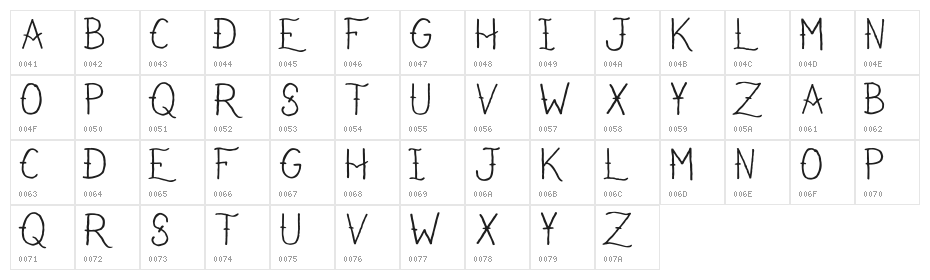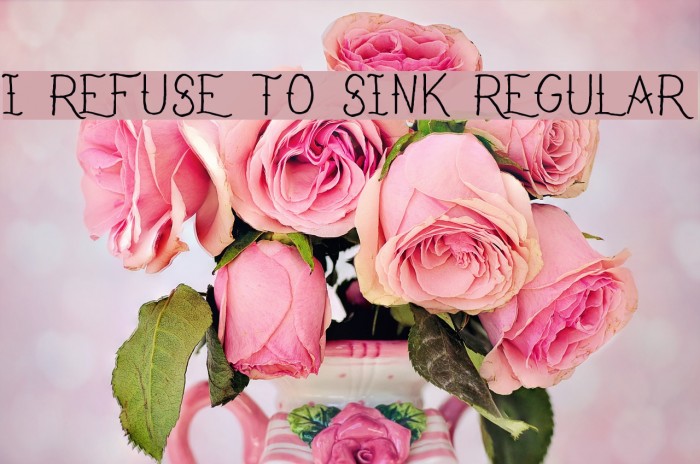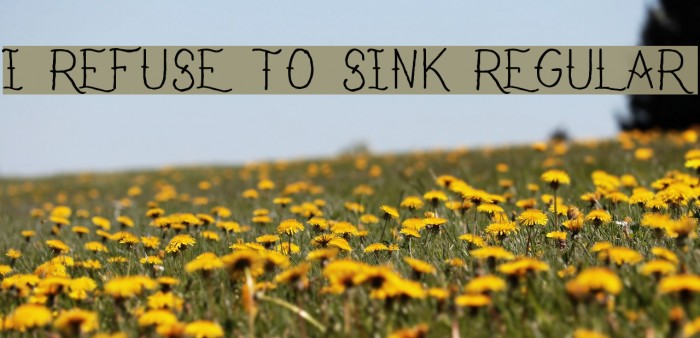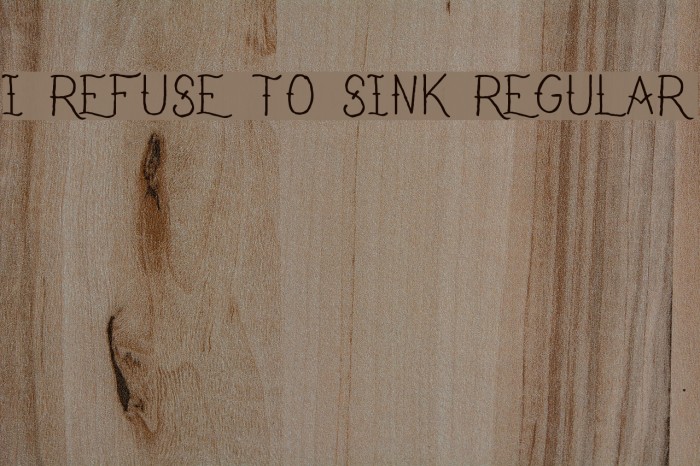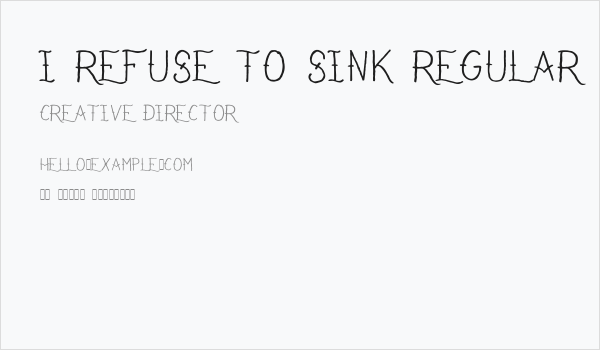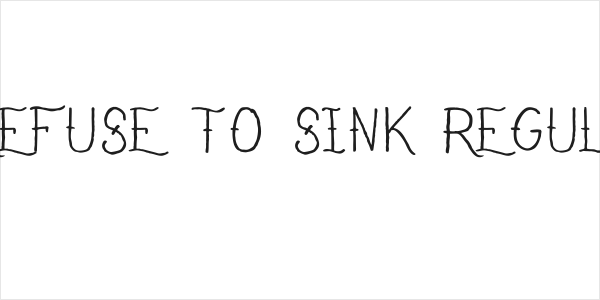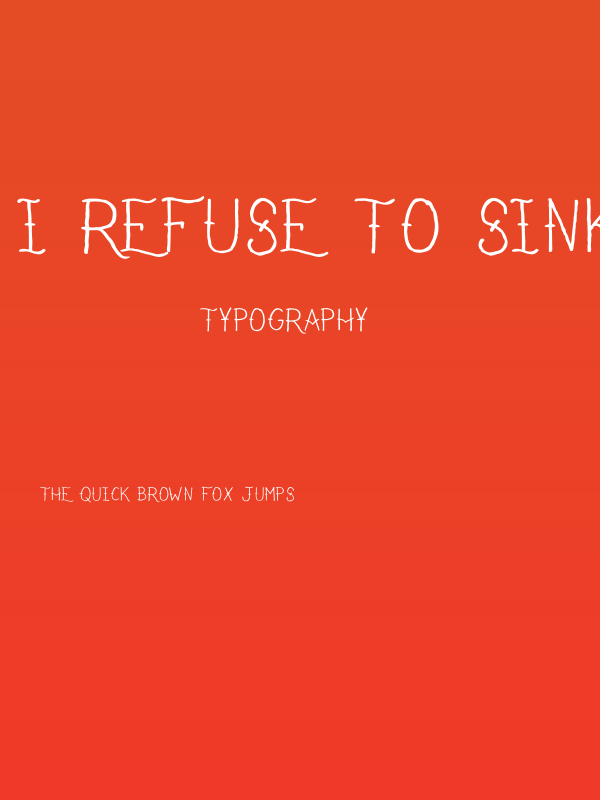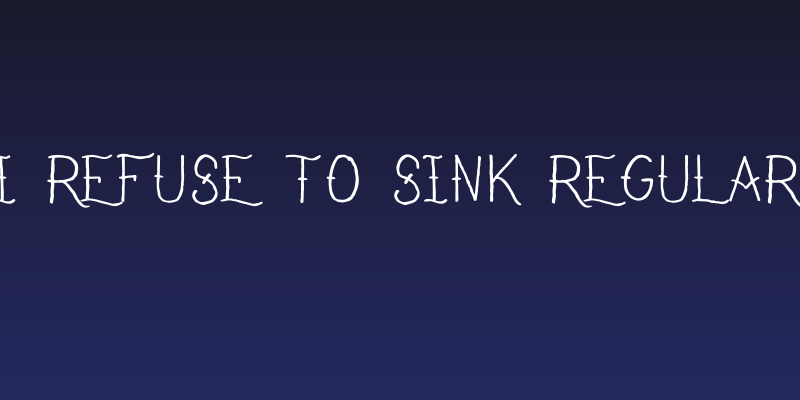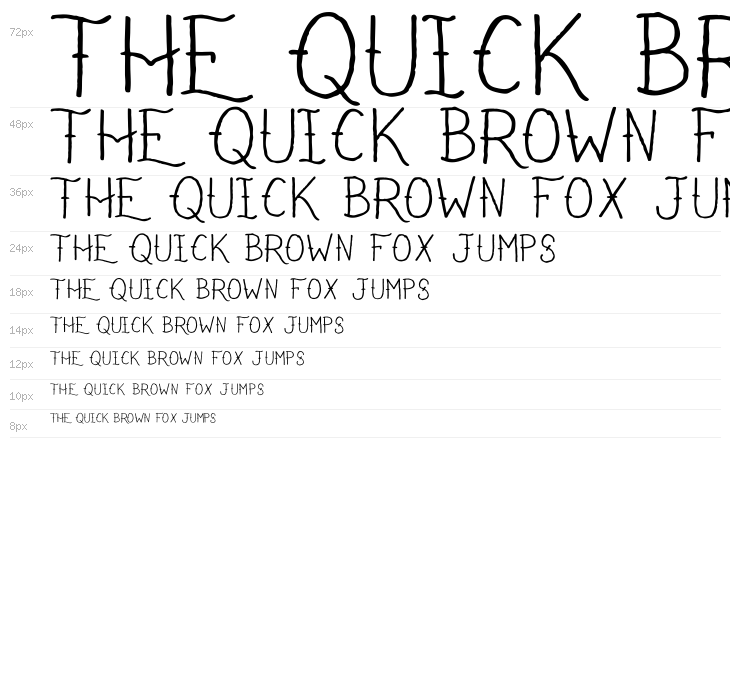
I Refuse To Sink Regular Font
I Refuse To Sink Regular Description
This font features a distinctive, hand-drawn style with a slightly irregular and whimsical appearance. The characters have a playful, nautical theme, reminiscent of tattoos or maritime designs. The strokes are uneven, giving it a casual and artistic feel. Each letter is unique, with quirky elements such as varying line thickness and slight tilts, adding to its charm. The font maintains a consistent height across characters, ensuring readability while preserving its decorative appeal. It is ideal for projects that require a personal touch or a creative, informal vibe.
| Use Case | Logos, Posters, Creative projects |
| Proposed Projects | Perfect for creative projects like greeting cards, posters, or branding for casual and artistic businesses. |